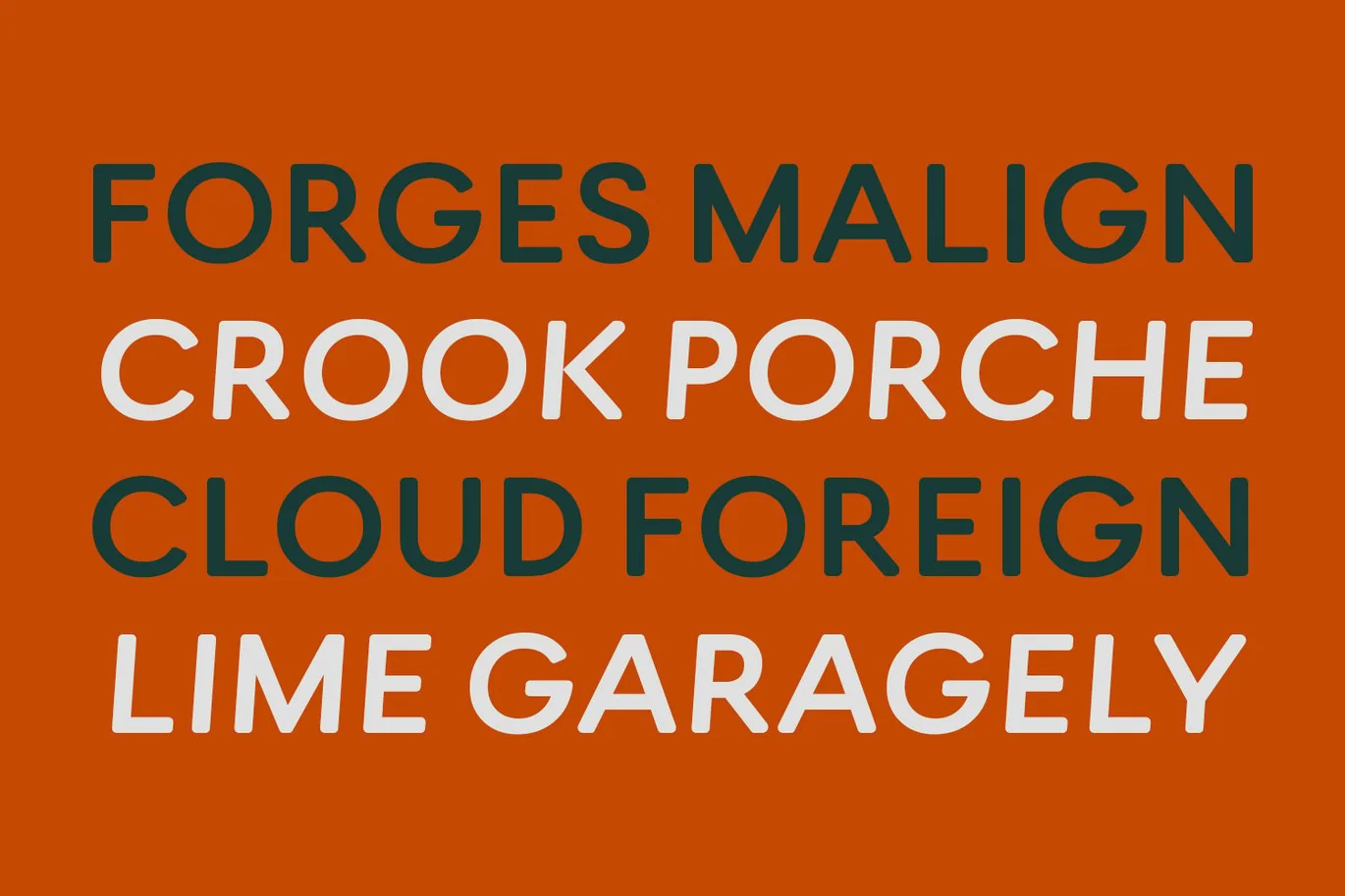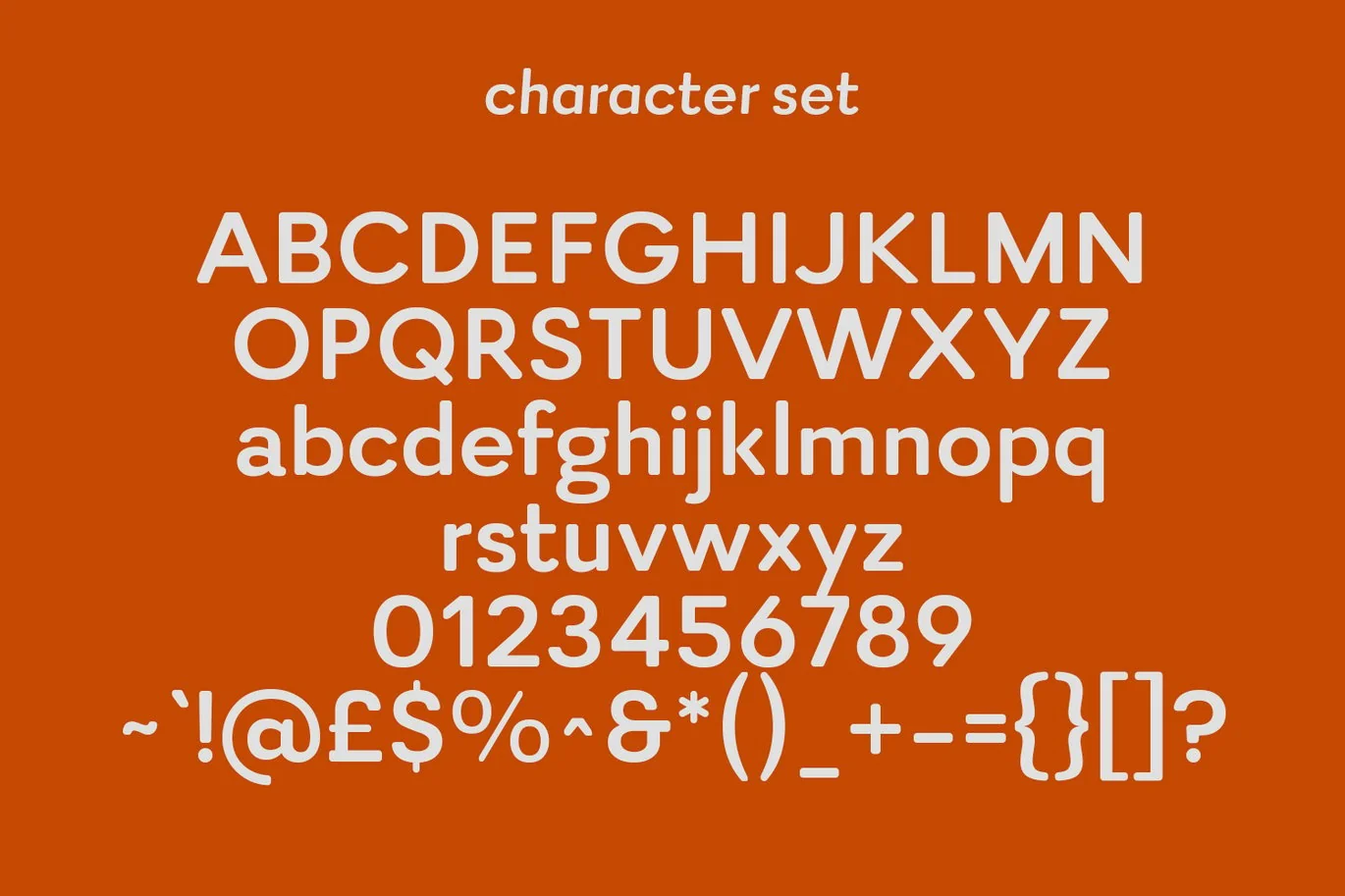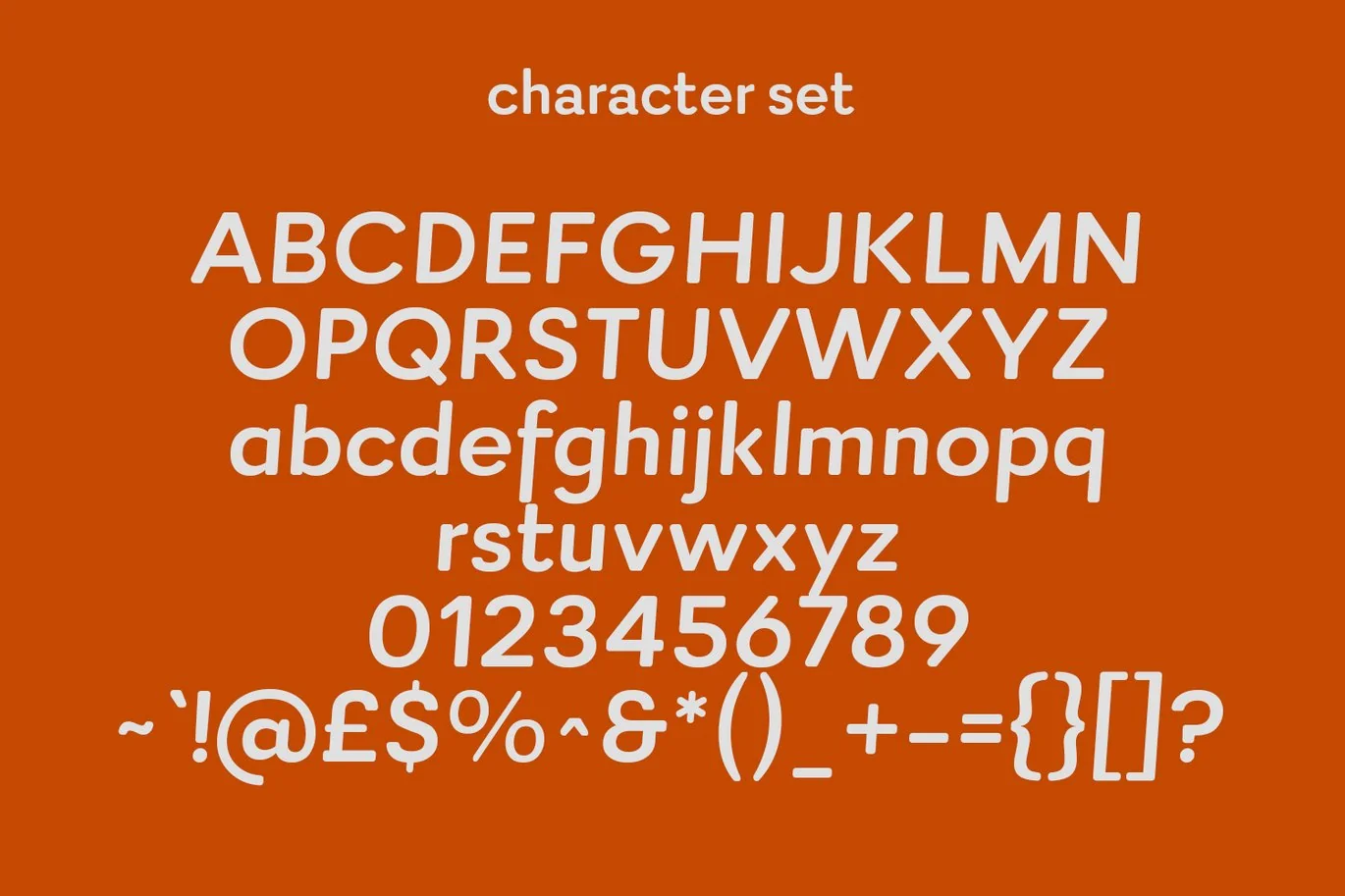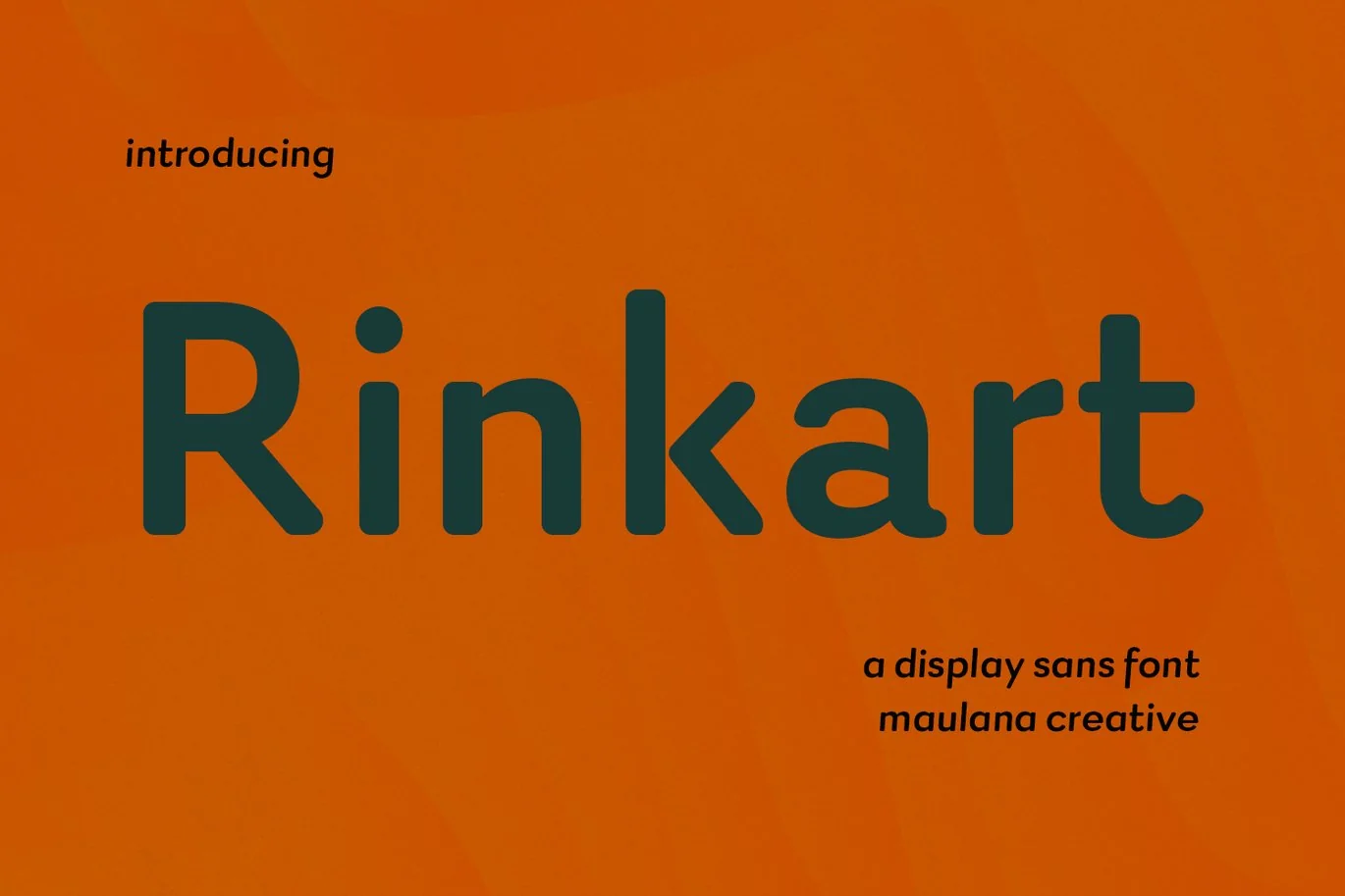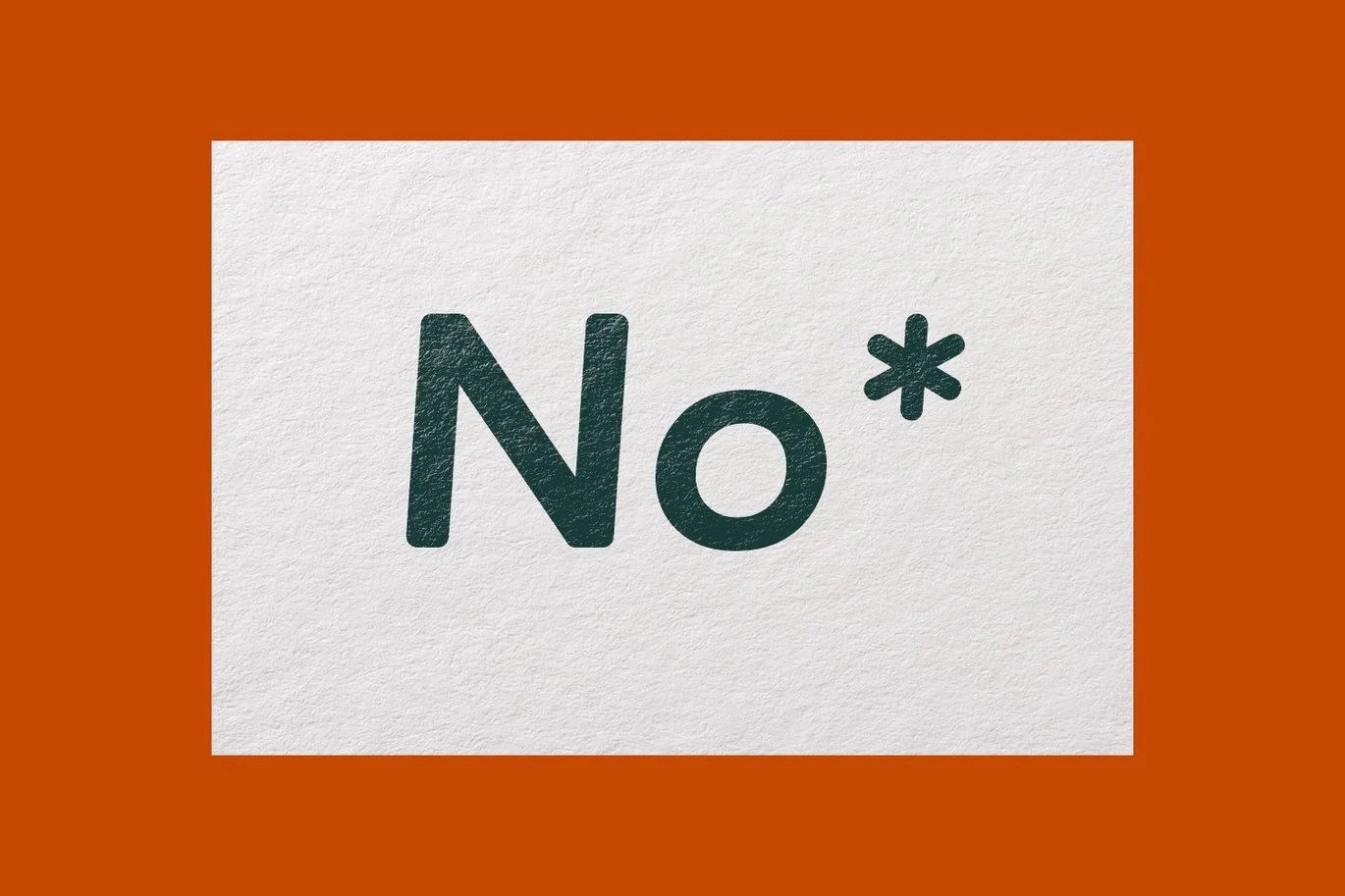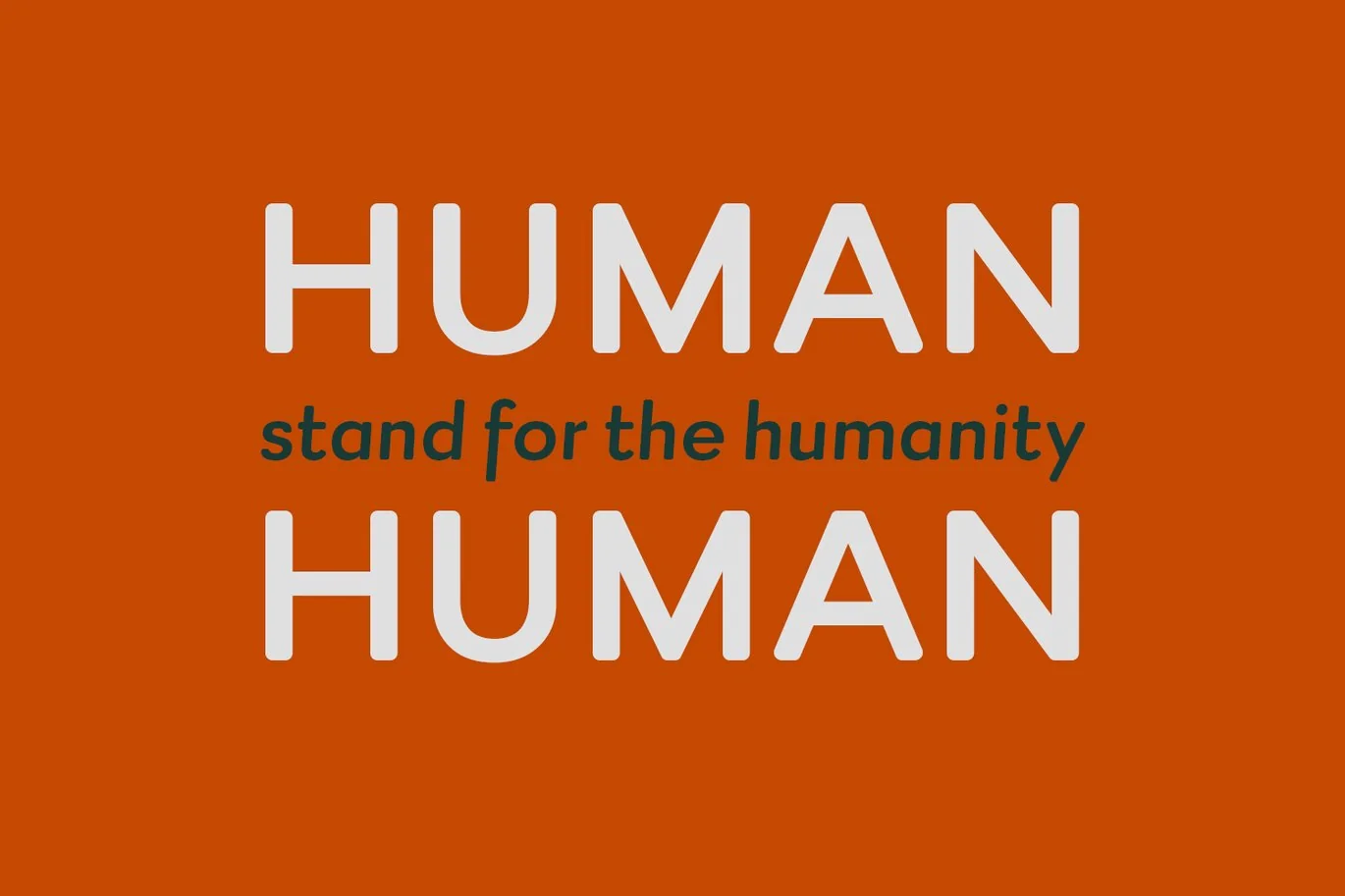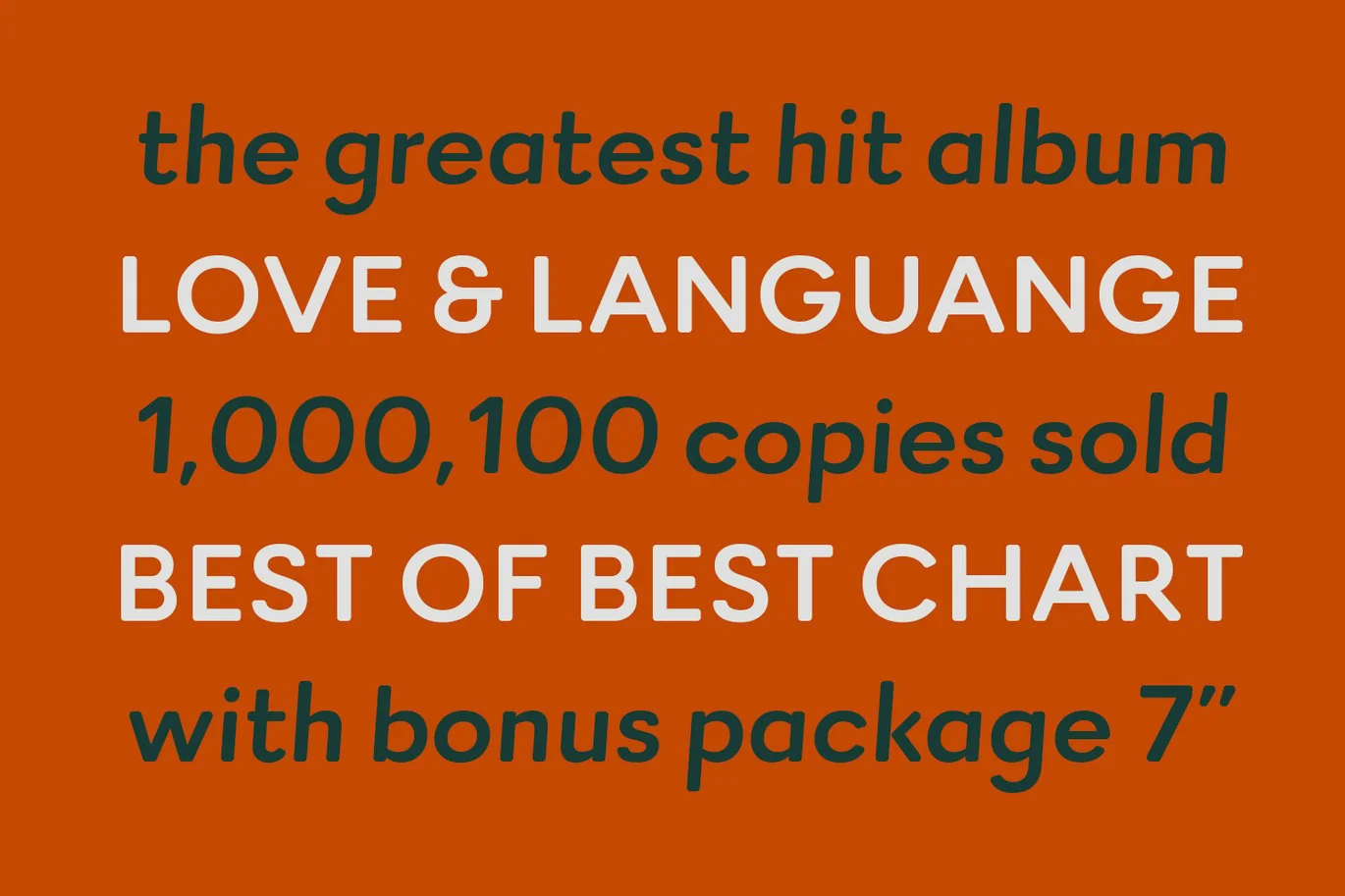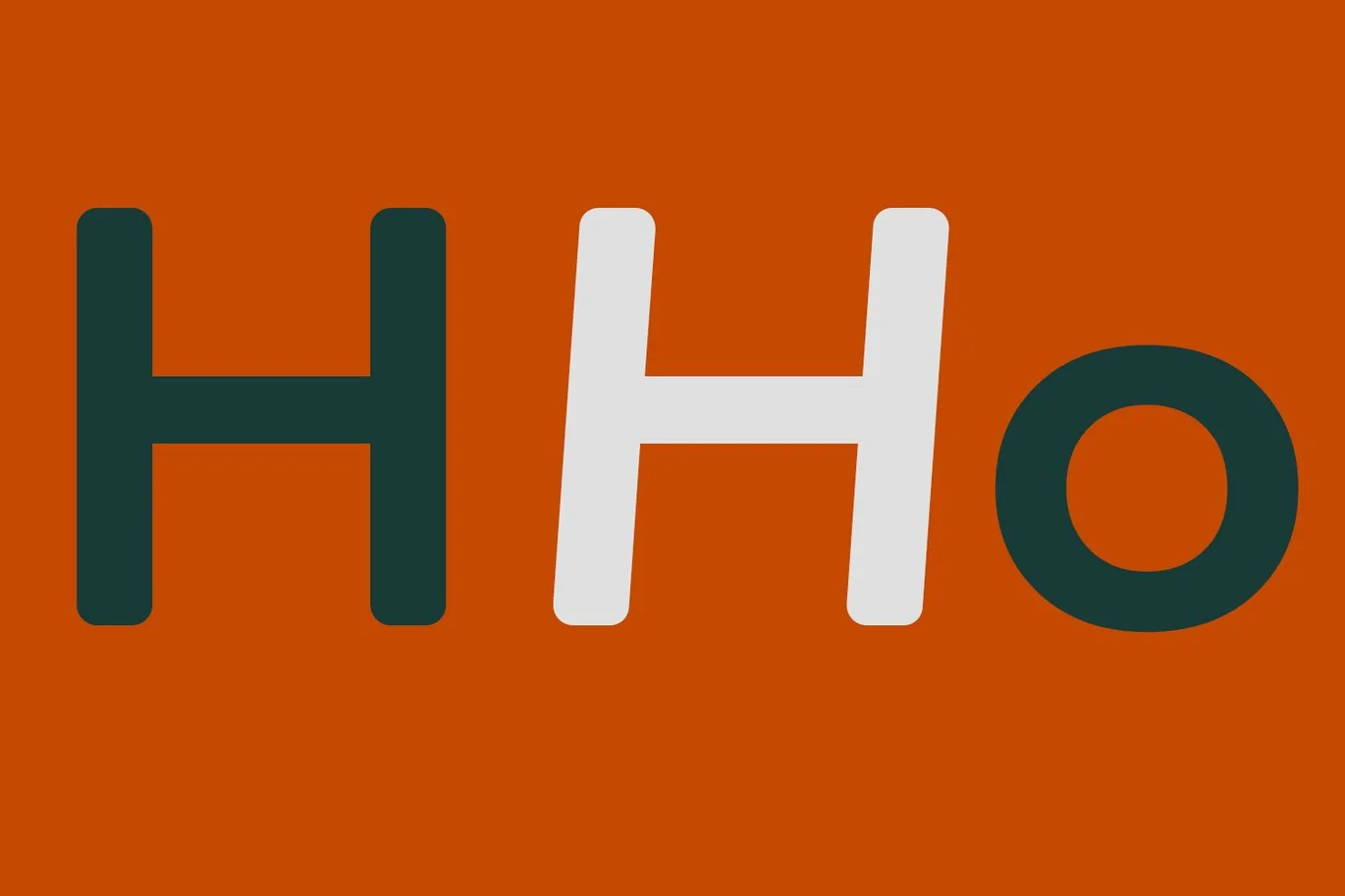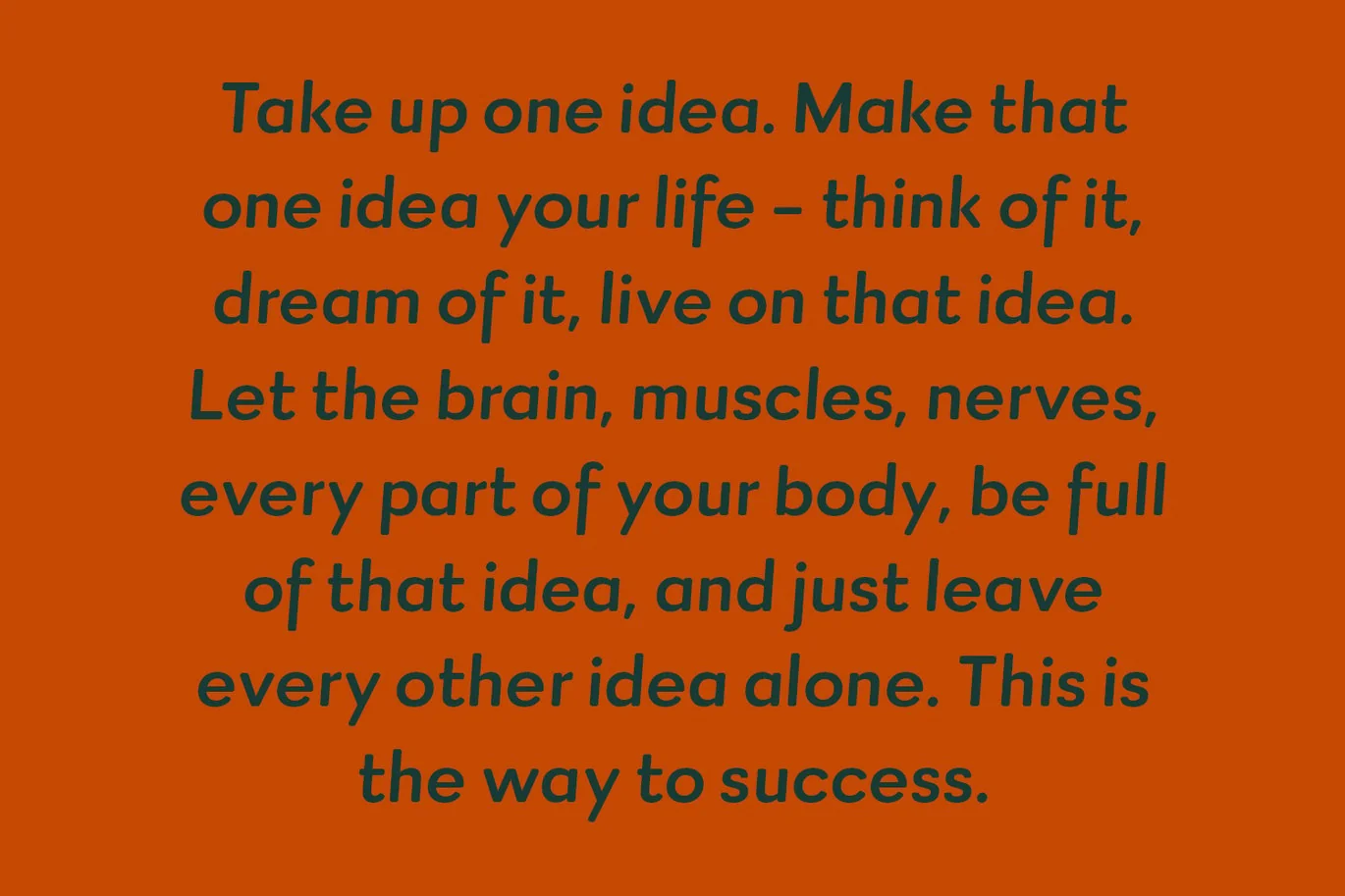
Rinkart Sans Display Font
Rinkart is a modern fun sans serif font. With regular and italic stroke, fun character with a bit of ligatures and alternates. To give you an extra creative work. Rinkart font support multilingual more than 100+ language. This font is good for logo design, Social media, Movie Titles, Books Titles, a short text even a long text letter and good for your secondary text font with script or serif. Make a stunning work with Rinkart font.